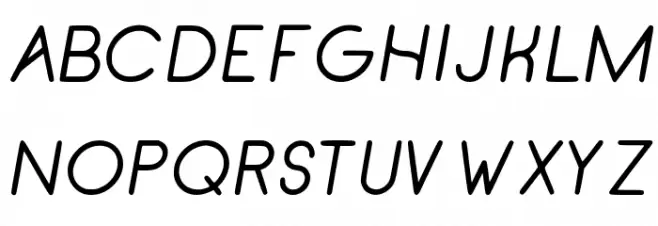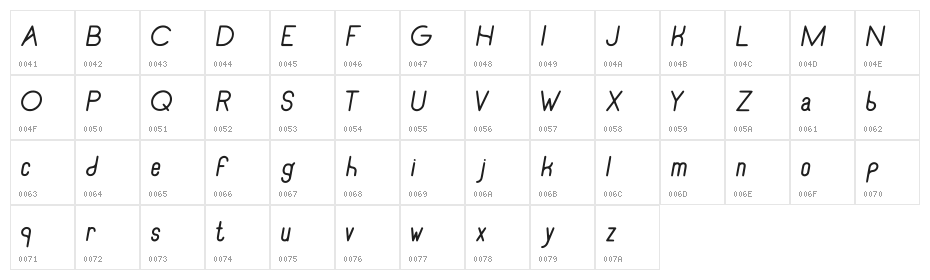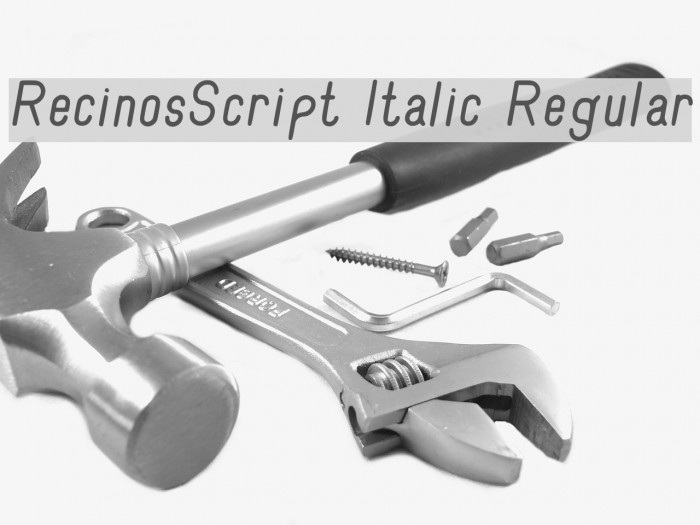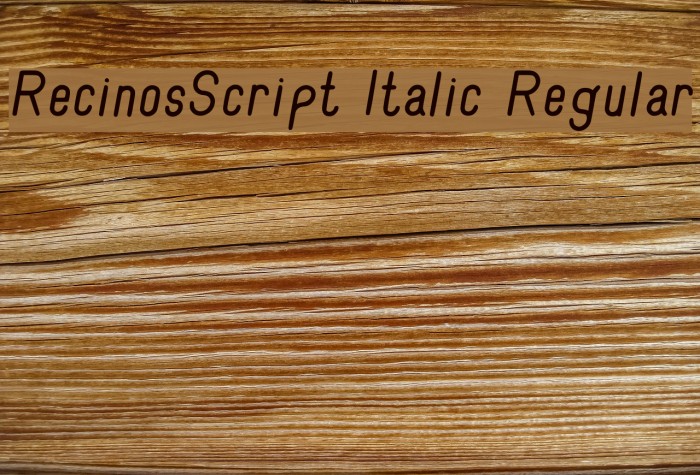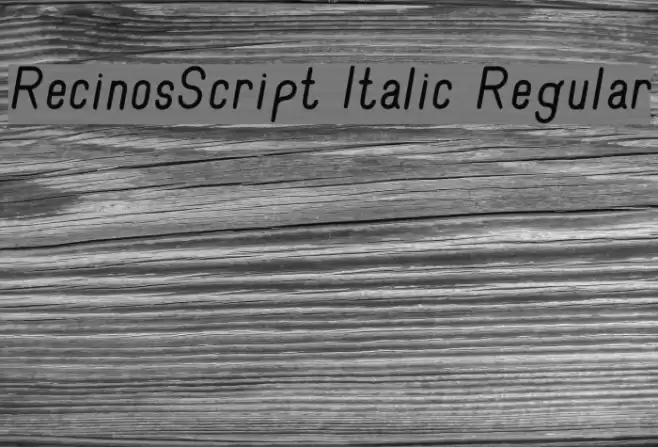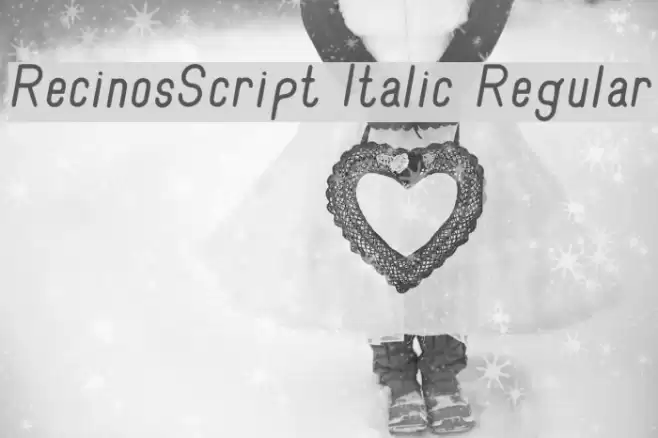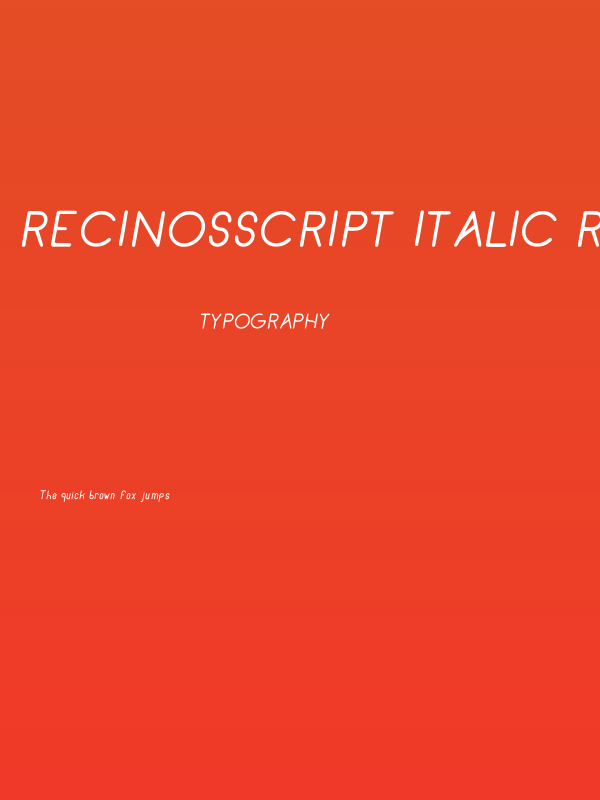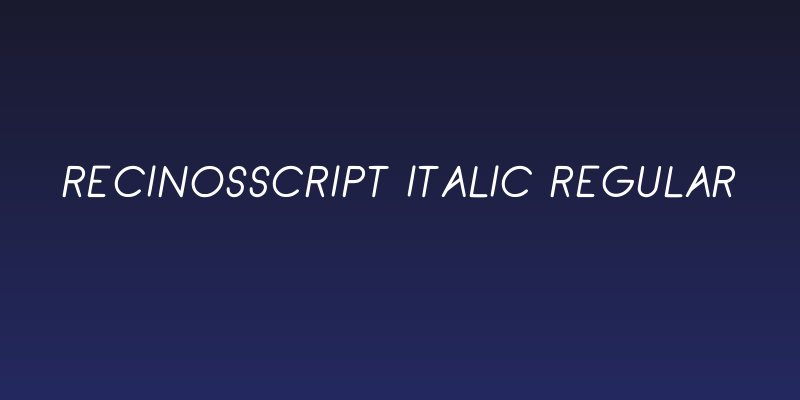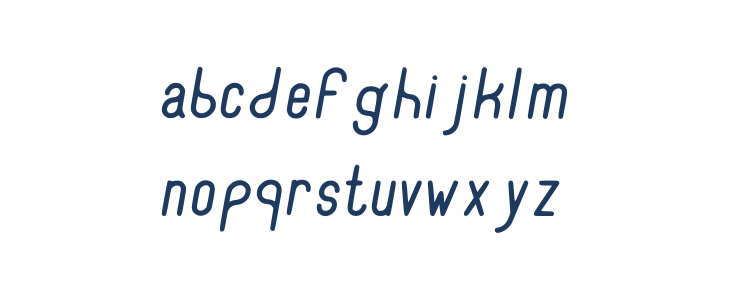
RecinosScript Italic Regular Font
RecinosScript Italic Regular Description
This font features a smooth, flowing script style with a slight slant, giving it an elegant and dynamic appearance. The characters are well-balanced with a consistent stroke width, enhancing readability while maintaining a stylish flair. The uppercase letters are slightly taller than the lowercase, which are rounded and feature subtle curves. The numerals are clear and distinct, matching the overall script style. Special characters are designed to complement the alphabet, maintaining the same fluidity and elegance. This font is ideal for projects that require a touch of sophistication and personality.